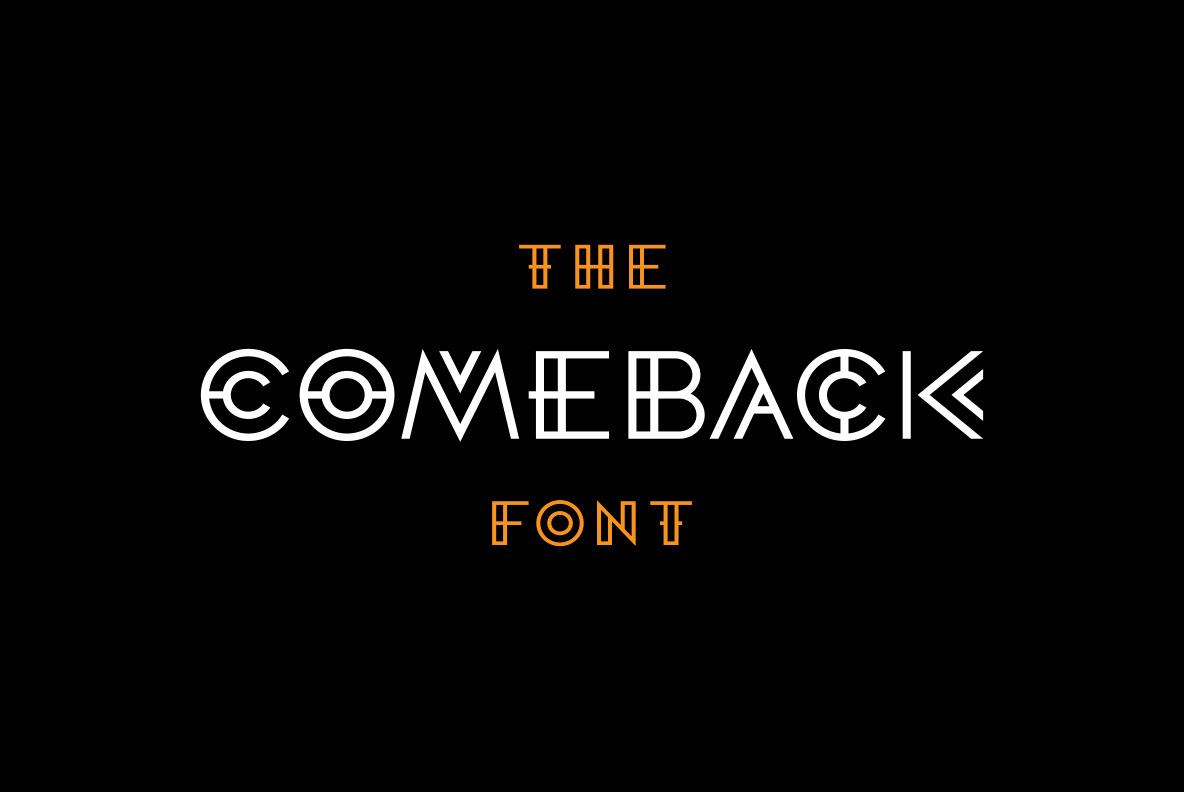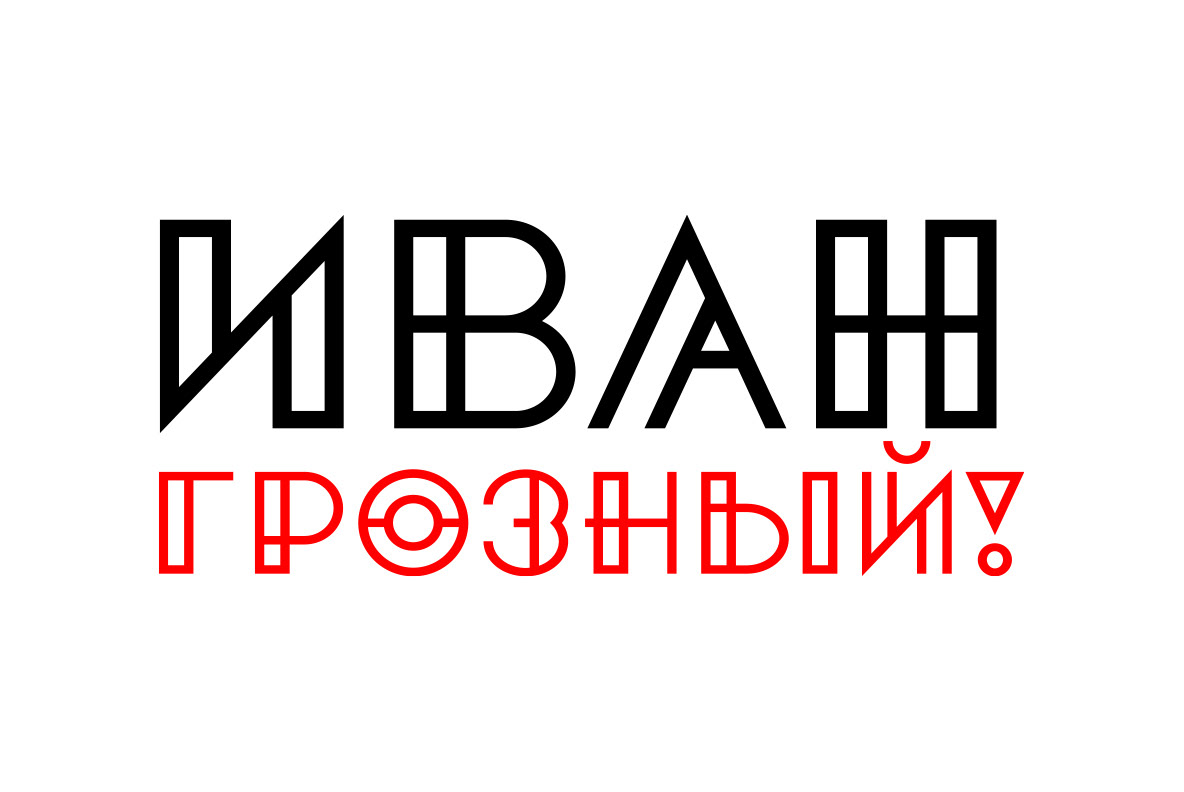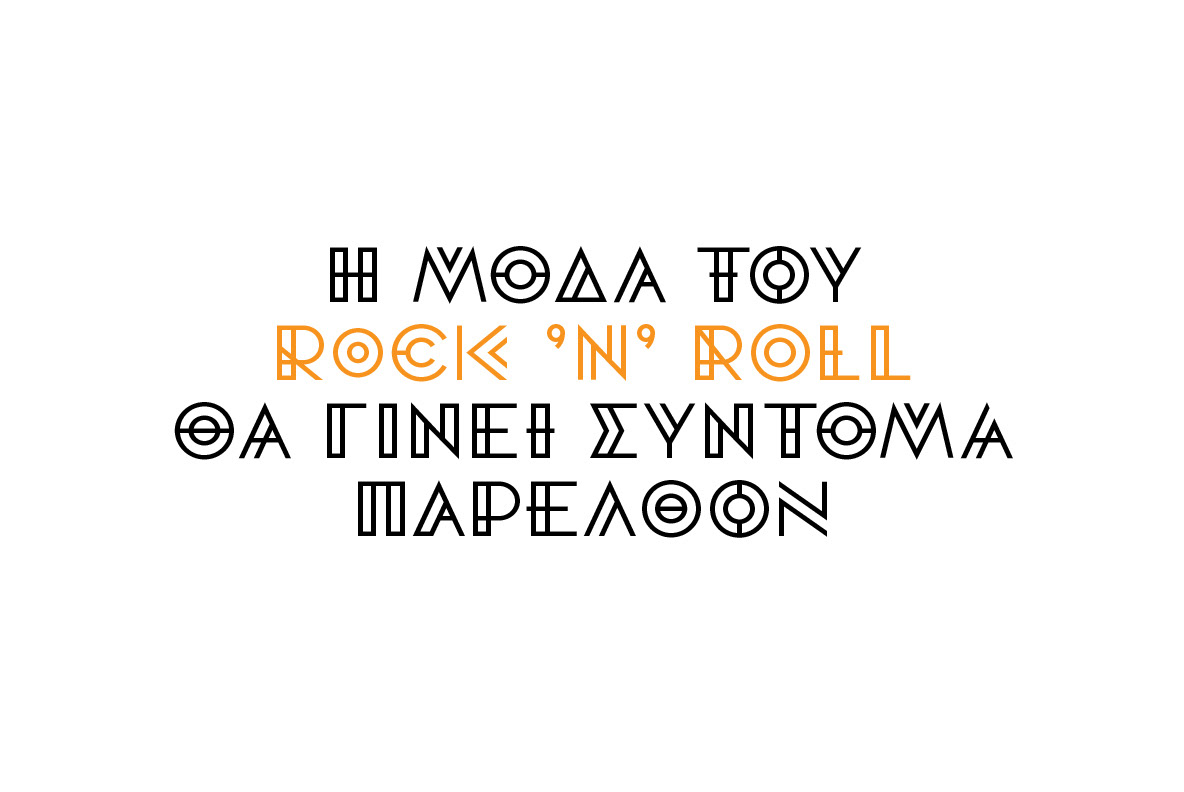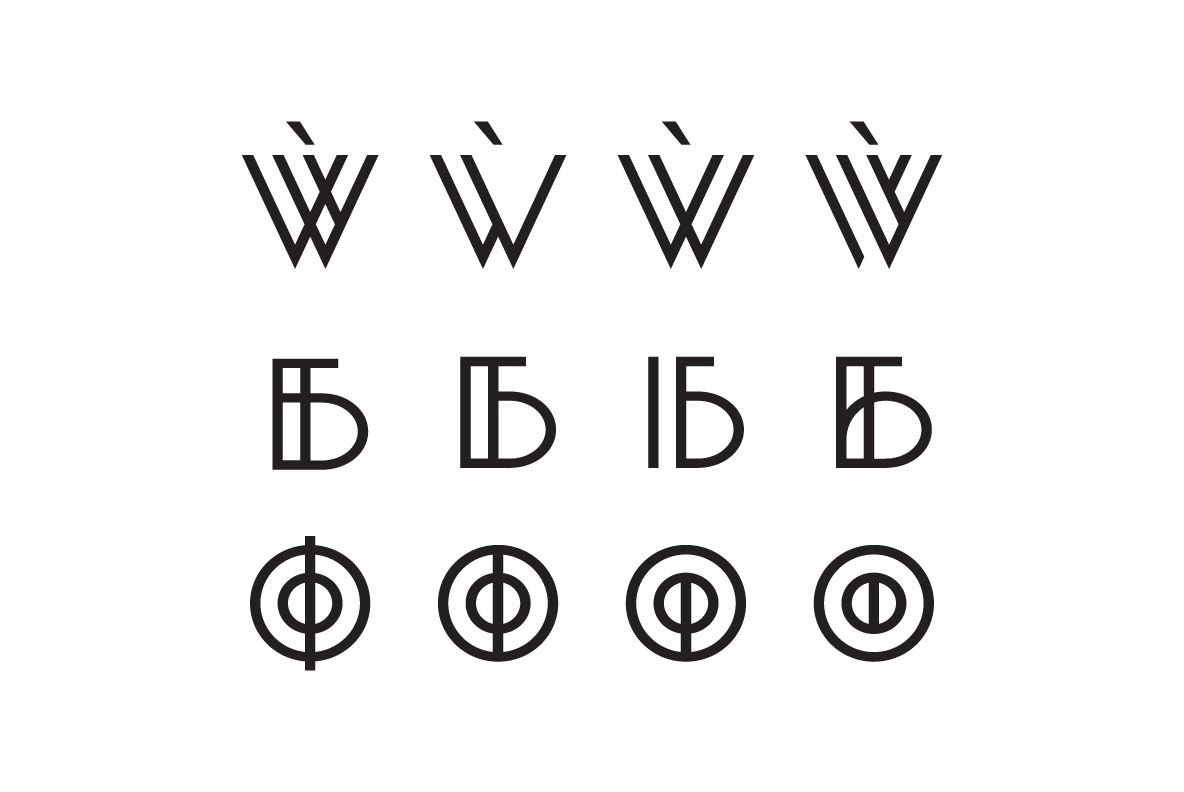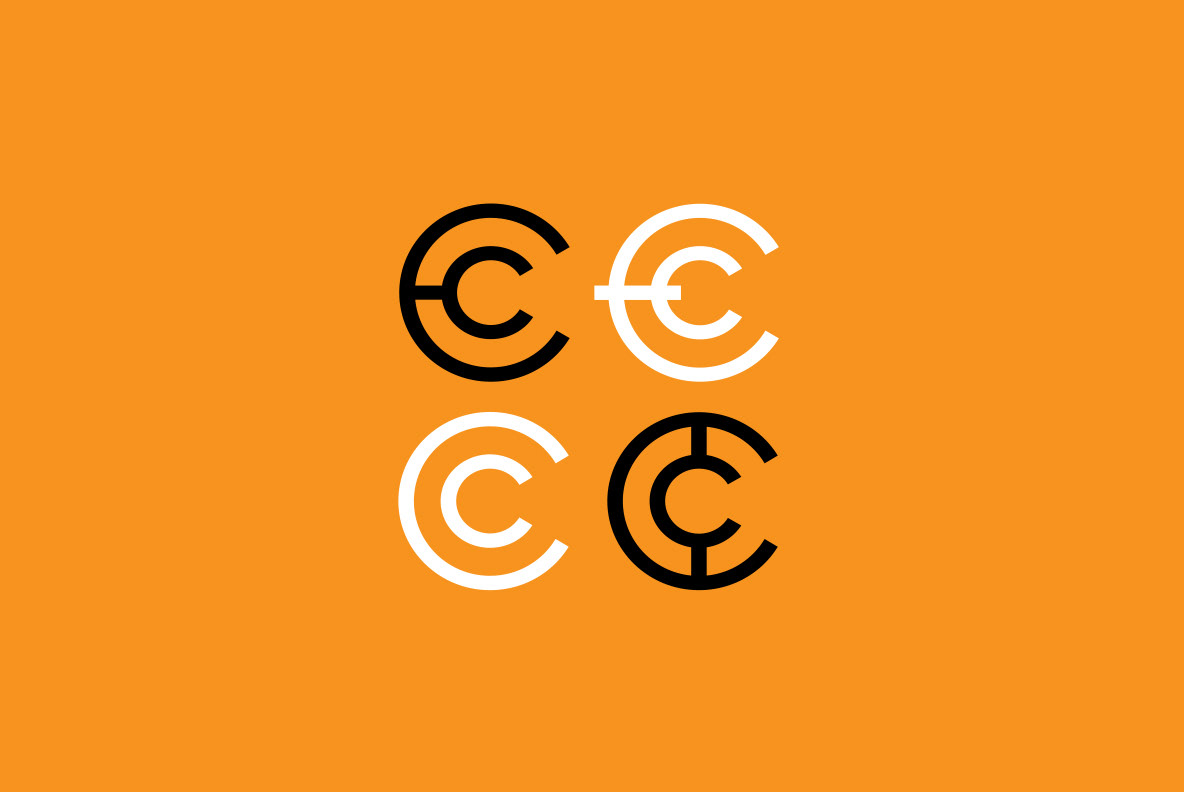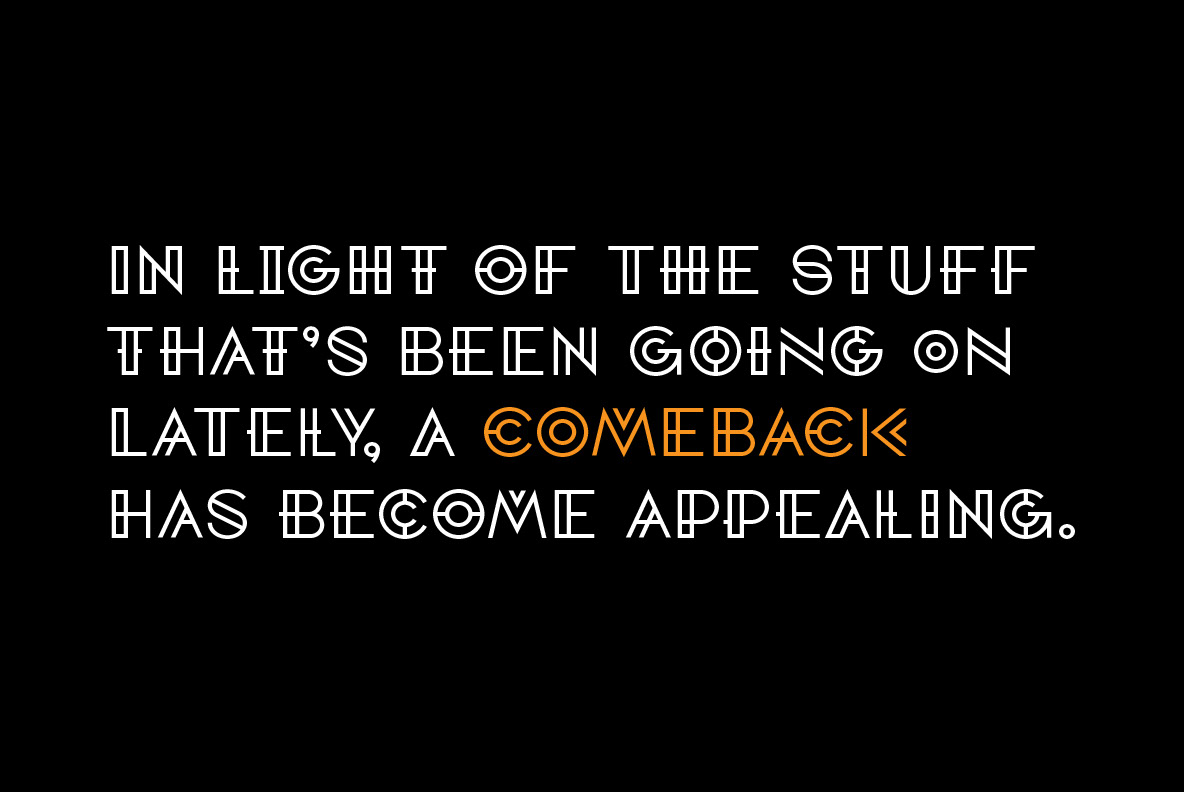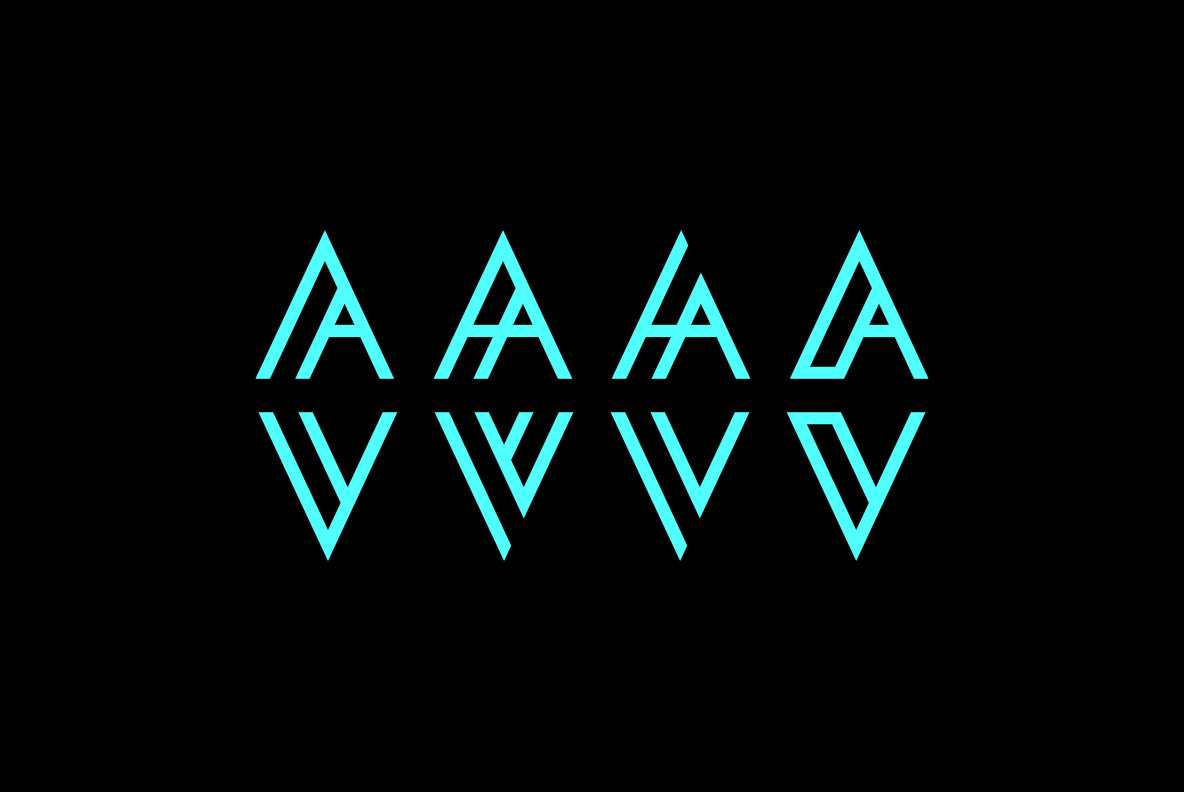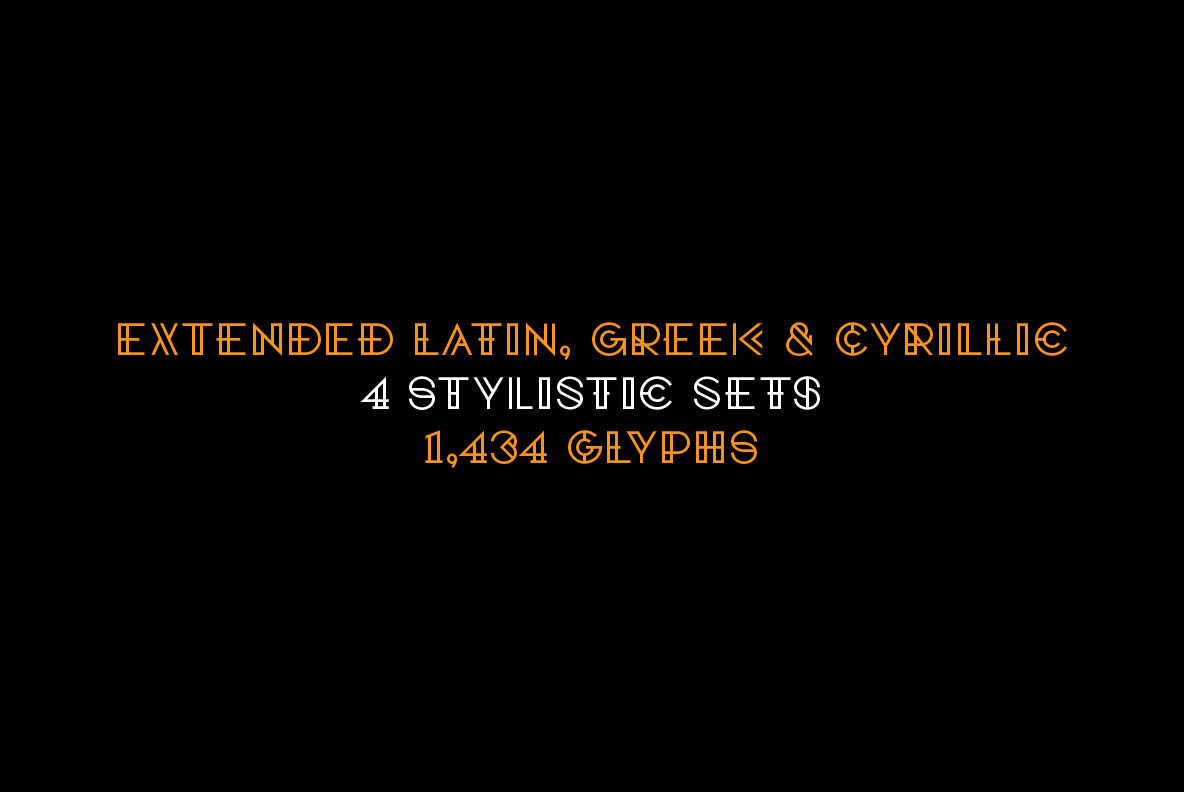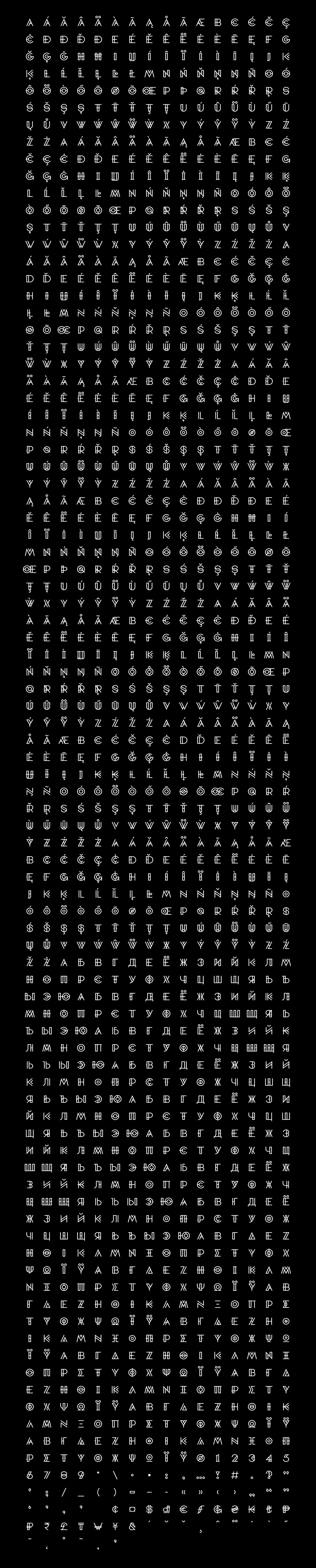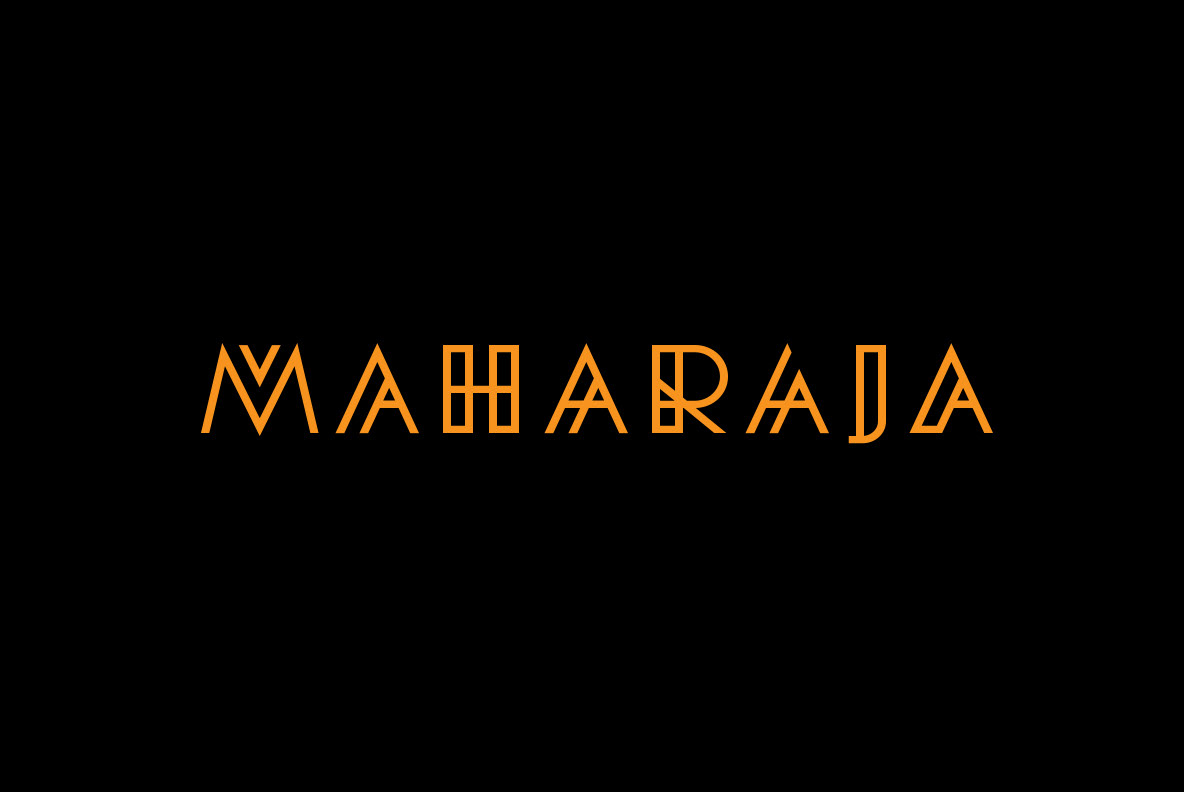
The Comeback Font is a display, caps-only geometric font. Its unique characteristic is that there are 4 versions (stylistic sets) of each letter. You can mix and match the sets, which makes possible for multiple different optical results.
It supports Basic & Extended Latin, Cyrillic & Greek, and has 1,434 glyphs.